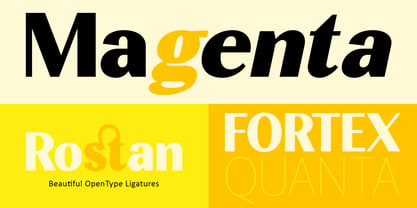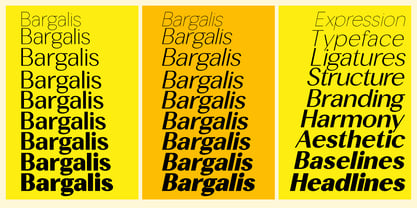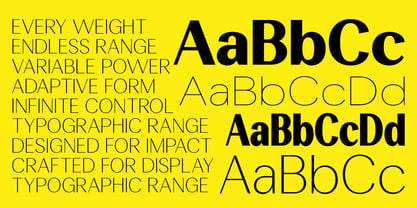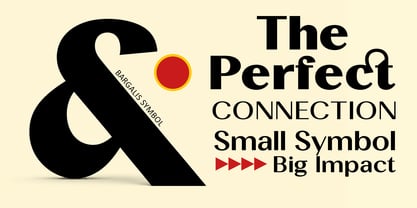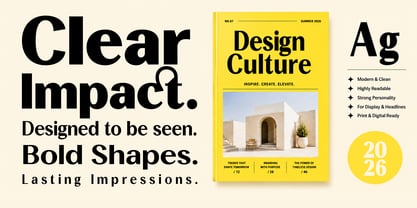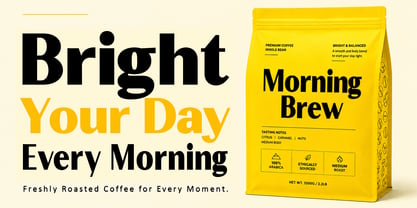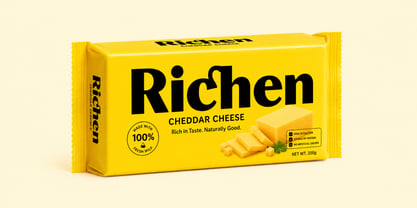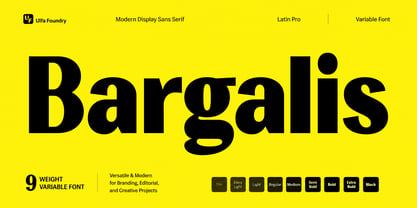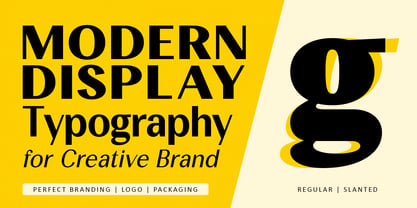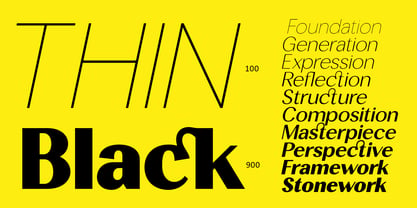
Bargalis
von Ulfa Foundry
Bargalis is a bold and expressive modern display sans serif designed to create a strong visual statement. Its clean geometric forms, distinctive letter shapes, and confident proportions bring a contemporary character to branding, editorial, advertising, and creative design projects.
With 9 variable weights, ranging from Thin to Black, Bargalis provides flexible control for both subtle and powerful typographic compositions. The family also includes a wide selection of ligatures and stylistic alternatives, giving designers more freedom to create unique and expressive letter combinations.
Perfect for headlines, logos, posters, packaging, fashion branding, editorial layouts, social media graphics, and modern visual identities, Bargalis combines versatility, strong readability, and distinctive typographic details.
Foundry: Ulfa Foundry